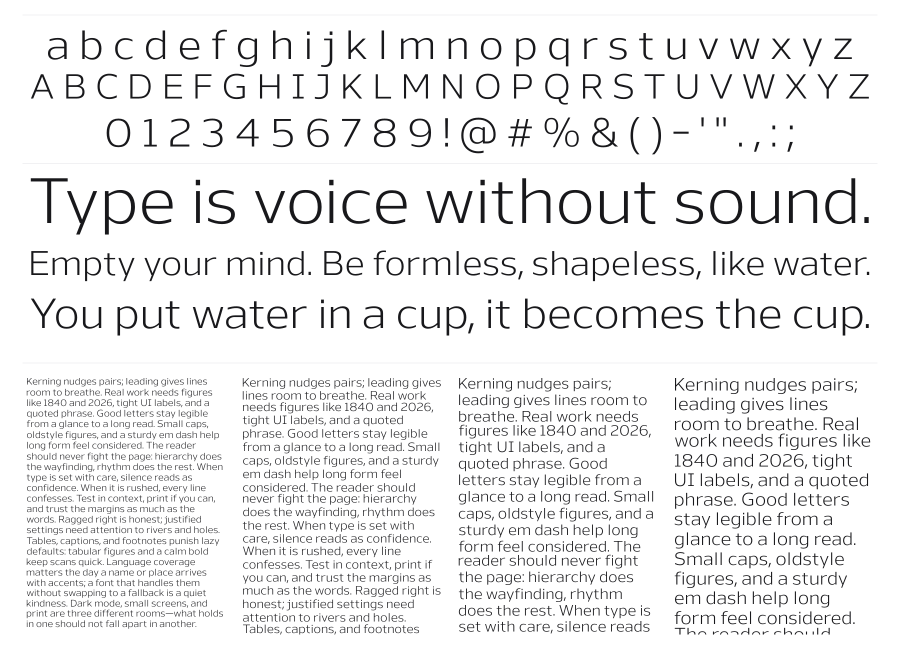
Nauman
Nauman is a light humanist sans-serif designed for on-screen reading, built around broad open characters and careful geometric structure. The combination of wide proportions, tall x-height, and low stroke contrast keeps it comfortable across long stretches of text on any display. It carries more than 900 characters and a rich set of OpenType features, including seven numeral styles and small caps.